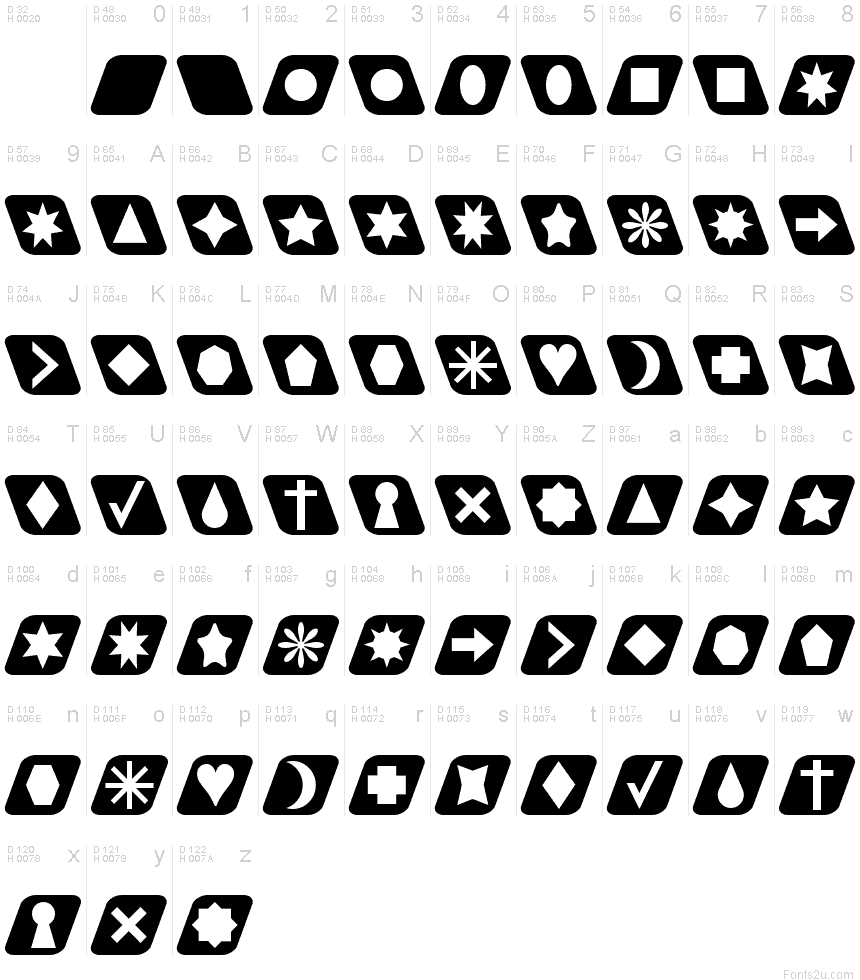
Cut Outs for 3D FX 2
Cut Outs for 3D FX 2 font is a free dingbat typeface that turns simple icons into chunky, ready-made buttons. Each symbol sits inside a softly rounded rectangle, with crisp white cut-out shapes that pop like punchy stickers against the inky black tiles. The repetition of that tablet shape makes every mark feel like part of the same playful interface set.
This free font shines on game HUDs, app mockups, retro control panels, sci‑fi posters, stream overlays, and bold social graphics. Using Cut Outs for 3D FX 2, you can quickly build consistent navigation icons, badges, or callouts without extra illustration work. For a clean, screen-like look, pair these dingbats with a simple geometric sans and keep the icons oversized so their carved-out forms stay sharp and legible.